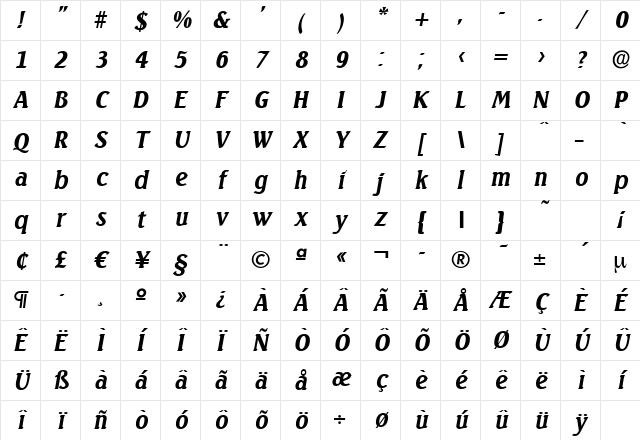
AbelBecker Bold Italic
Design Context for AbelBecker
AbelBecker is a composed and adaptable typeface that performs quietly and consistently across a wide range of design contexts. The slanted form adds forward momentum and visual energy. Its bold stroke weight gives it real presence on the page.
Pro Tip: Use AbelBecker for emphasis, pull quotes, and subheadings where its slanted energy can add rhythm to the layout.